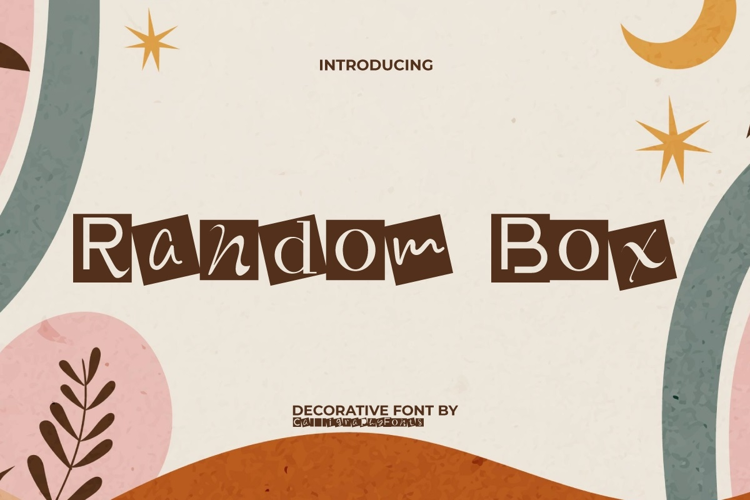
Random Box Font
Random Box Font is an adorable decorative display font with a variety of squares on each letter, presenting a standout appearance. The shape of the alphabet is also made random to add a unique and interesting impression. It’ll be perfect for whatever your project is, including brand logos, brochure, greeting cards, invitations, label, packaging design, poster, quotes, screen print, social media, stationery, stickers, title, website, and more.
Random Box Font is a fun box decoration font with a friendly and cheerful concept that can provide design choices. This font is suitable for anything, especially kids themes, cartoon character, children’s animation, clothing brand, crafts, fashion, graphic design, homeware, photography, restaurant, school, toyshop, and others. This font is able to create a sense of joy and color in your creations.